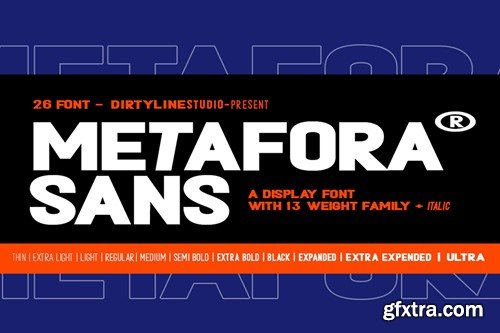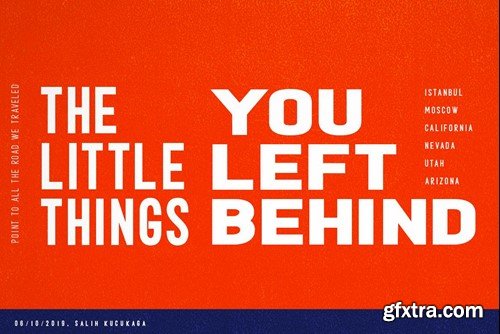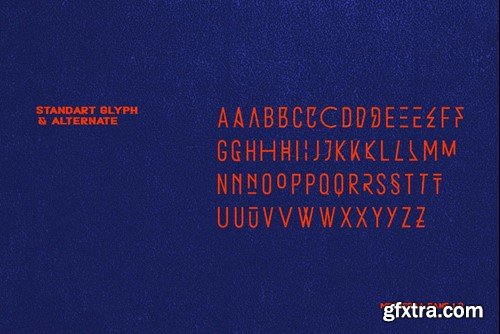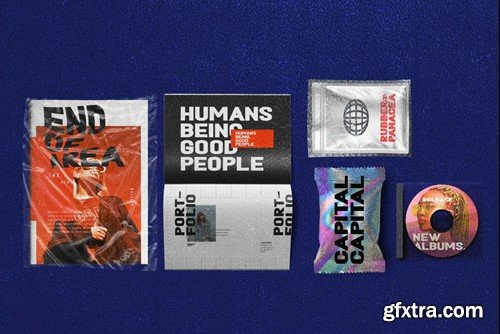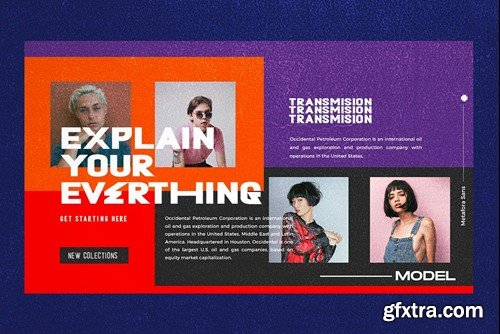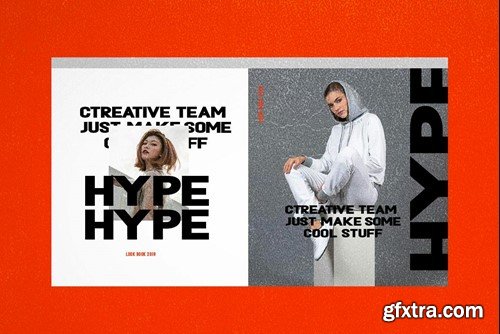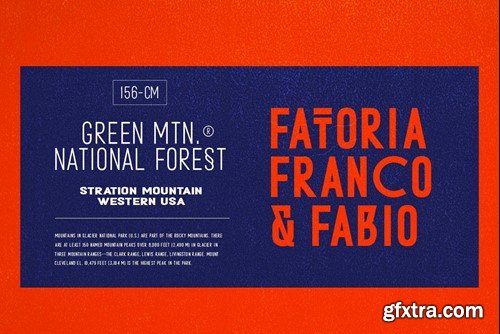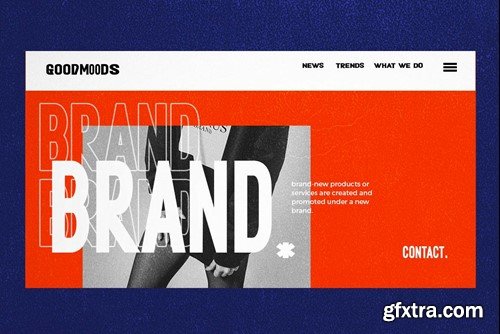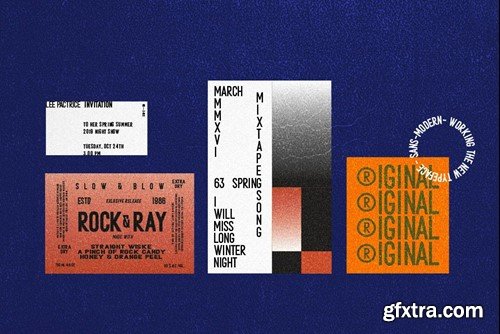
METAFORA Modern Sans Serif Font CZL8L6D
Metafora Modern Sans Serif Font
Metafora Sans is a contemporary display family with multifunctional workhorse designed to work best in any printed and on screen contexts, including logo design, brand identities, websites, packaging, poster and headline. The Typeface come in 13 weights, with Upright and Oblique each, for a total of 26 styles.
The Feature :
• Stylistic Set Alternate
• Basic Latin A-Z and a-z
• Numbers Symbols
• Ligature
• Multilanguage Support